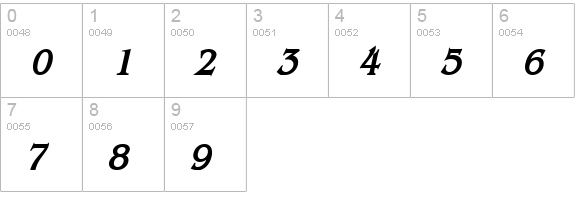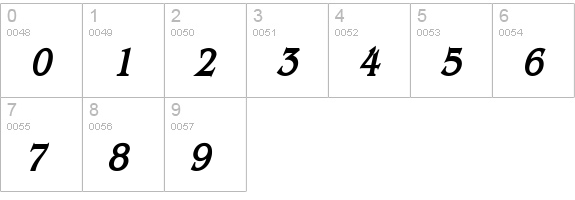
Bangle Condensed Bold Italic Font Details
Bangle Condensed Bold Italic is a strong, high-contrast, condensed-width, italic variant in the Bangle typeface family \xE2\x80\x94 well suited to headlines, attention-grabbing titles, and strong calls-to-action.
Bangle Condensed Bold Italic font is a striking and modern typeface that exudes confidence and elegance. Its bold and italic design adds a touch of sophistication to any project, making it perfect for headlines, titles, and branding materials. The condensed style allows for maximum impact while maintaining readability, making it a versatile choice for both print and digital applications. Best of all, Bangle Condensed Bold Italic font is available for free download at FontsMarket.com. This means you can easily incorporate this stylish font into your designs without any cost. Don't miss out on the opportunity to enhance your projects with this eye-catching typeface that is sure to make a lasting impression. Download Bangle Condensed Bold Italic font today and elevate your design game to the next level.